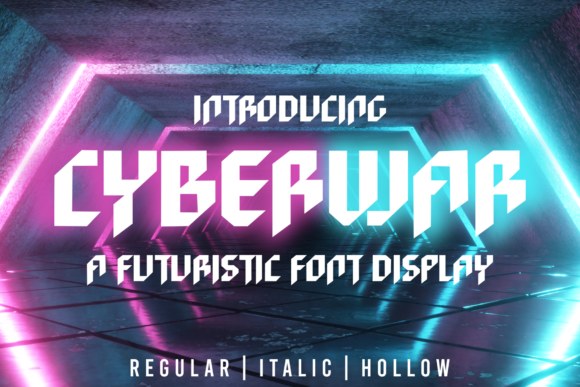
Cyberwar: A Futuristic Display Font
Imagine a world where the battlefield isn’t just physical, but digital. Cyberwar is more than just a buzzword—it’s a powerful tool that can transform your creative projects, branding, and digital presence. With its bold, futuristic aesthetic, Cyberwar offers a unique way to stand out in a crowded online space. Whether you're a designer, marketer, or entrepreneur, understanding how to use Cyberwar can elevate your work and make it more engaging.
What Is Cyberwar?
Cyberwar refers to the use of digital tools and techniques to disrupt, damage, or gain an advantage over another entity. While it often conjures images of state-sponsored attacks, its applications extend far beyond traditional warfare. In the context of design and creativity, Cyberwar represents a visual style that blends technology with artistry. It’s characterized by sharp angles, neon colors, and dynamic typography that evoke a sense of speed and energy.
This style isn’t just for tech enthusiasts or military experts. It can be adapted to suit a wide range of industries and purposes. From website headers to social media graphics, Cyberwar adds a modern, edgy flair that captures attention instantly.
Why Cyberwar Matters in Design
In today’s fast-paced digital landscape, standing out is essential. Cyberwar offers a fresh perspective that aligns with contemporary trends and audience expectations. Its visual impact makes it ideal for creating memorable brand identities, especially in fields like gaming, tech startups, and digital marketing.
Moreover, Cyberwar is versatile. It can be scaled to fit different platforms and formats. Whether you’re designing a logo, a banner ad, or a video title sequence, this style can adapt to meet your needs. Its futuristic vibe also resonates well with younger audiences who are drawn to innovation and cutting-edge aesthetics.
Practical Applications of Cyberwar
Let’s explore some real-world examples of how Cyberwar can be applied across various domains:
- Branding: Use Cyberwar fonts in your logo or tagline to create a strong, recognizable brand identity.
- Social Media: Incorporate Cyberwar elements into your Instagram posts, Twitter threads, or TikTok videos to boost engagement.
- Website Design: Apply Cyberwar typography to headlines, buttons, or call-to-action sections to guide user attention.
- Marketing Campaigns: Create eye-catching promotional materials that leverage the dynamic nature of Cyberwar.
- Content Creation: Use Cyberwar as a visual theme in your blog posts, vlogs, or podcasts to enhance storytelling.
Each of these applications demonstrates how Cyberwar can be tailored to fit specific goals. The key is to maintain clarity and consistency while embracing the style’s unique characteristics.
How to Get Started with Cyberwar
Whether you're a beginner or an experienced designer, incorporating Cyberwar into your work requires a few practical steps:
- Experiment with Color: Neon hues and contrasting backgrounds are essential for making Cyberwar designs pop.
- Test Different Layouts: Play with spacing, alignment, and hierarchy to ensure your design remains readable and visually appealing.
- Stay Updated: Keep an eye on emerging trends and new variations of Cyberwar to stay ahead in your creative process.
By following these steps, you can effectively integrate Cyberwar into your projects while maintaining a balance between creativity and functionality.
Adapting Cyberwar for Different Audiences
The beauty of Cyberwar lies in its adaptability. Here are a few ways to tailor it to different audiences:
- For Gamers: Use Cyberwar in game titles, character designs, or UI elements to enhance immersion and excitement.
- For Marketers: Apply Cyberwar to slogans, banners, or email subject lines to capture attention quickly.
- For Educators: Integrate Cyberwar into lesson plans or interactive presentations to make learning more engaging.
- For Entrepreneurs: Use Cyberwar in pitch decks or business cards to convey innovation and forward-thinking.
- For Hobbyists: Experiment with Cyberwar in personal projects, such as custom fonts or digital art.
Each adaptation allows you to connect with your audience in a meaningful way, reinforcing the relevance and impact of your work.
Conclusion
Cyberwar is more than just a trend—it’s a powerful design element that can elevate your creative output and digital presence. By understanding its principles and applications, you can harness its potential to create compelling, memorable content that resonates with your audience.
Whether you're looking to build a brand, engage with your community, or simply express your creativity, Cyberwar offers a unique and effective way to do so. Start experimenting today and discover how this futuristic display font can transform your work.